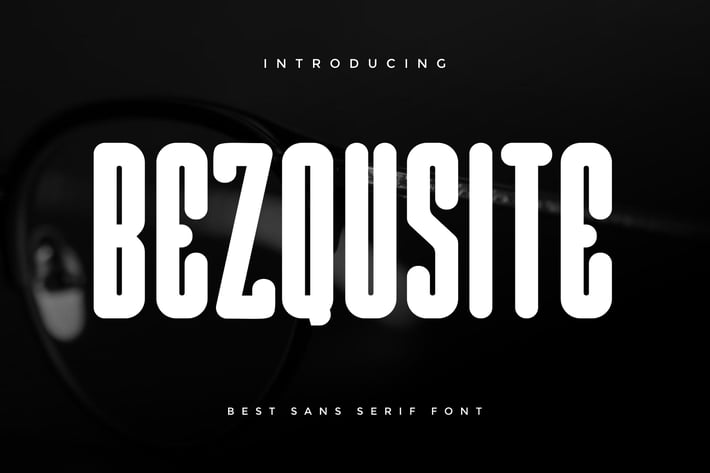
Bezqusite - Sans Serif Font
Introducing our new product Bezqusite - Modern Font
Bezqusite is a bold, modern display font with playful flair, ideal for attention-grabbing headlines, logos, and diverse design projects. Versatile and readable in both digital and print, Bezqusite adds a dynamic touch to your message.